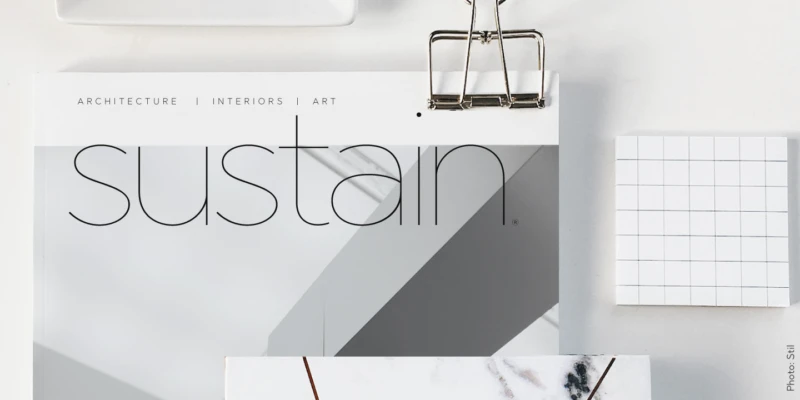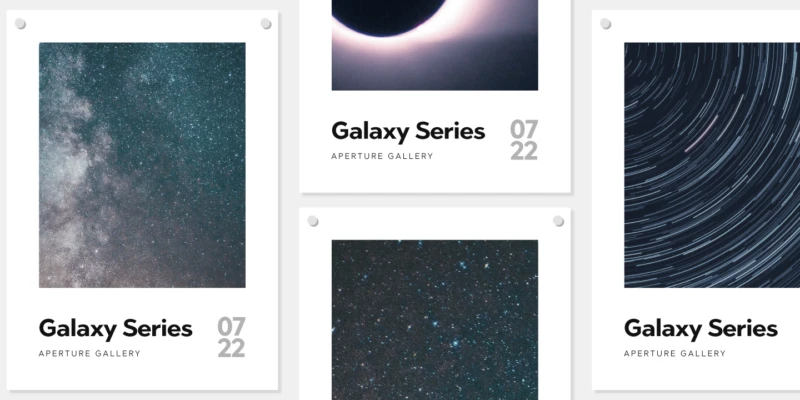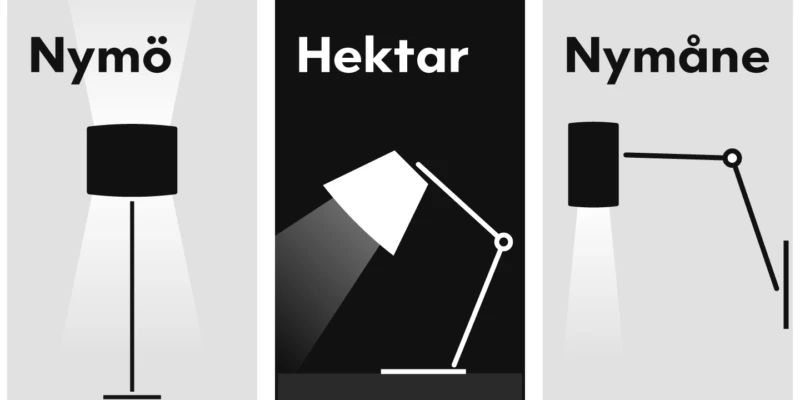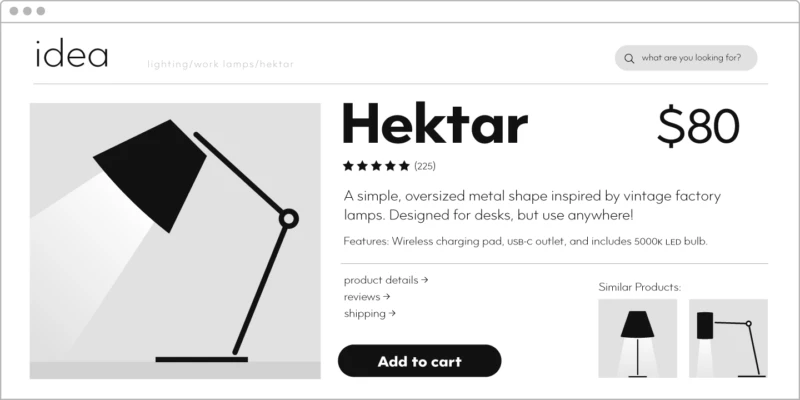
Abrade Font Family
Abrade is a geometric sans serif with rational design choices for contemporary functionality. The family is designed with a medium x-height to provided great legibility in both display and text sizes. The forms are refined to work well in print and on screen. The italics maintain the rational forms, with only the essential structural changes. With 12 weights, the family is ideal for publications, digital media, corporate systems, branding, as well as your band’s gig poster. Abrade is equipped with extended language support, including Extended Latin, Greek, and Cyrillic. Features include: stylistic alternates, small caps, figure sets, and lots of OpenType features to keep designers happy.
Abrade font by J Foundry — the word “sustain” in thin sans serif upright letters, with “ARCHITECTURE | INTERIORS | ART” above it
Abrade font by J Foundry — a grid of four images of starry skies, each with the words “Galaxy Series” and “Aperture Gallery” in sans serif type, and the numbers “07” and “22” stacked vertically.
Abrade font by J Foundry — three panels, each with a different lamp icon and a word in sans serif capitals: Nymö with a floor lamp, Hektar with a desk lamp, and Nymåne with a wall lamp.
Abrade font by J Foundry — the word “Hektar” in a bold sans-serif, with a black desk lamp illustration to its left
Hairline thin
Clean geometric forms
Greek
Cyrillic
Alternate t, g
Alternate a, u
Small caps
Text & Cap height numbers
Fractions